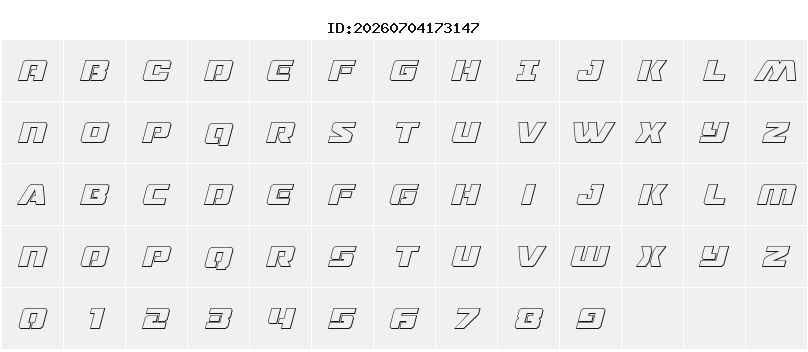
Drone Tracker Outline Italic Preview
• Font Name: Drone Tracker Outline Italic
• Font Style: Outline Italic
• Full Font Name: Drone Tracker Outline Italic
About Drone Tracker Outline Italic.ttf
Drone Tracker Outline Italic.ttf is a modern, elegant sans-serif font designed for ultimate readability and visual harmony. Perfect for branding, headlines, web design, and print materials.